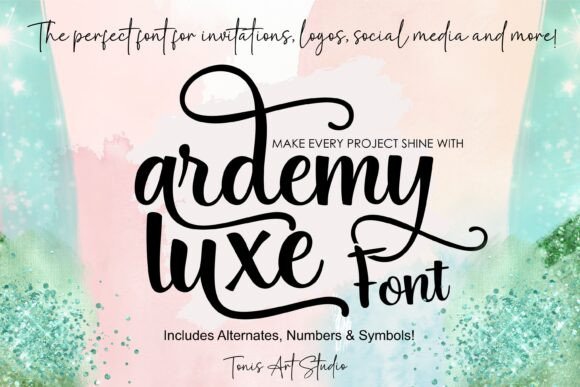
The Ardemy Luxe Font: Elevating Your Designs with Luxury and Elegance
I’ll never forget the time I was working on a wedding invitation project, and my client asked for a font that exuded luxury and sophistication. I scoured the internet, tried countless fonts, but nothing seemed to fit the bill. That was until I stumbled upon the Ardemy Luxe Font. ✨ It was love at first sight! With its elegant script and refined features, I knew I had found the perfect fit for my project.
An Honest Review of Ardemy Luxe Font
- 💫 Elegant and Luxurious Design: The Ardemy Luxe Font is designed to impress, with its beautiful script and refined features that add a touch of luxury to any design.
- ✅ Versatile: This font is perfect for a wide range of design projects, from weddings and branding to social media posts and more.
- 🌈 Highly Readable: Despite its elegant design, the Ardemy Luxe Font remains highly readable, even at smaller font sizes.
- 🎨 OpenType Features: The font comes with a range of OpenType features, including glyphs and stylistic alternates, that allow for endless creativity.
While the Ardemy Luxe Font is an amazing design tool, there are a few things to keep in mind: 🤔
- ⚠️ Limited Use for Body Text: Due to its elegant and cursive nature, the Ardemy Luxe Font may not be the best choice for body text or longer blocks of text.
- ⚠️ Requires Attention to Kerning: As with any script font, kerning can be a bit tricky, and may require some manual adjustment to get just right.
The Designer Inspiration Behind Ardemy Luxe Font
The Ardemy Luxe Font was designed with the goal of creating a luxurious and elegant script font that would elevate designs to the next level. Inspired by classic calligraphy and refined typography, this font is perfect for designers looking to add a touch of sophistication to their work.
Q: What is the Ardemy Luxe Font best used for?
A: The Ardemy Luxe Font is perfect for weddings, branding, and sophisticated designs, such as logos, invitations, social media posts, and more.
Q: Is the Ardemy Luxe Font easy to read?
A: Yes, despite its elegant design, the Ardemy Luxe Font remains highly readable, even at smaller font sizes.
Q: Does the Ardemy Luxe Font come with OpenType features?
A: Yes, the Ardemy Luxe Font comes with a range of OpenType features, including glyphs and stylistic alternates, that allow for endless creativity.